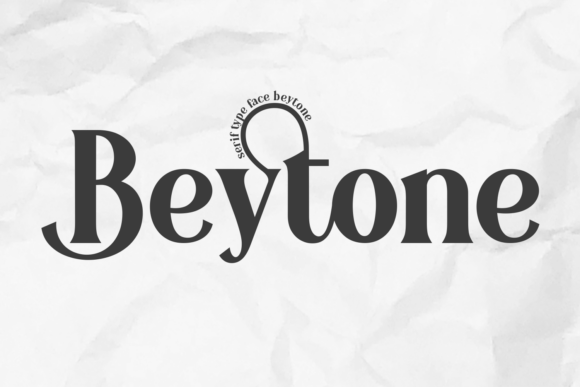
Beytone Font: Elevate Your Design with Elegance and Personality
In the world of typography, fonts play a crucial role in conveying the tone and personality of a brand, product, or editorial content. Among the numerous typefaces available, Beytone stands out as a distinctive and sophisticated serif font that seamlessly blends classic elegance with a striking personality. In this article, we’ll delve into the features, applications, and benefits of using Beytone in your design projects.
The Essence of Beytone: A Contemporary Serif Typeface
Beytone is a thoughtfully crafted serif typeface that embodies the perfect balance of refinement and boldness. Its high contrast strokes, sharp serifs, and artistic ligature touches create a unique visual identity that’s both eye-catching and timeless. This contemporary serif font is designed to make a statement, making it an excellent choice for luxury branding, editorial headlines, fashion magazines, and sophisticated logo designs.
Key Features of Beytone
- High Contrast Strokes: Beytone’s high contrast strokes add a touch of sophistication and elegance, making it perfect for designs that require a level of refinement.
- Sharp Serifs: The sharp serifs in Beytone provide a sense of precision and sharpness, adding a modern twist to the classic serif typeface.
- Artistic Ligature Touches: Beytone’s artistic ligatures bring a creative and artistic flair to the font, making it ideal for designs that require a touch of personality.
Applications of Beytone
Beytone’s versatility makes it suitable for a wide range of design applications, including:
- Luxury Branding: Beytone’s sophisticated and elegant design makes it perfect for luxury brands looking to establish a high-end visual identity.
- Editorial Headlines: The font’s bold and attention-grabbing personality makes it ideal for editorial headlines, adding a touch of drama and flair to magazine spreads and articles.
- Fashion Magazines: Beytone’s fashion-forward design and artistic ligatures make it a great fit for fashion magazines and editorial content.
- Sophisticated Logo Designs: The font’s unique blend of elegance and personality makes it suitable for logo designs that require a level of sophistication and refinement.
Benefits of Using Beytone
By incorporating Beytone into your design projects, you can:
- Elevate Your Brand: Beytone’s sophisticated design helps establish a high-end visual identity, elevating your brand’s reputation and image.
- Add Personality: The font’s artistic ligatures and bold personality add a touch of creativity and flair to your designs, making them more engaging and memorable.
- Stand Out: Beytone’s unique design makes it stand out from more traditional serif typefaces, ensuring your designs grab attention and leave a lasting impression.
Beytone is a game-changing serif typeface that offers a perfect blend of classic elegance and striking personality. Its high contrast strokes, sharp serifs, and artistic ligature touches make it a versatile font suitable for a wide range of design applications. Whether you’re working on luxury branding, editorial headlines, fashion magazines, or sophisticated logo designs, Beytone is an excellent choice for designers and crafters looking to elevate their designs and make a lasting impression.
Experience the power of Beytone and discover a new world of typographic possibilities. With its unique voice and timeless grace, Beytone is poised to become a favorite among designers and crafters seeking to add a touch of sophistication and personality to their designs.